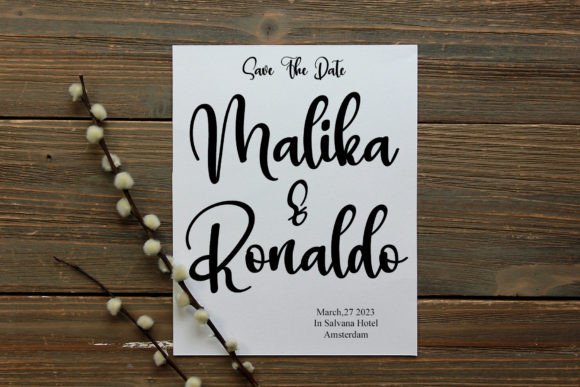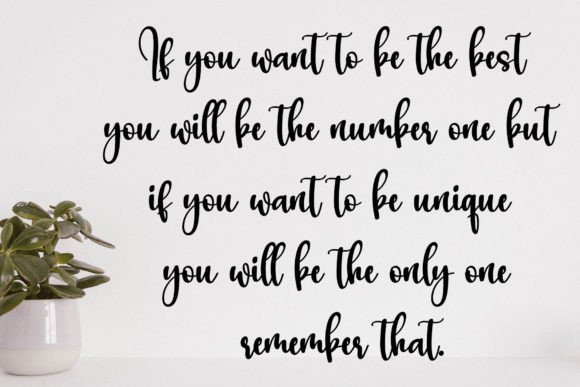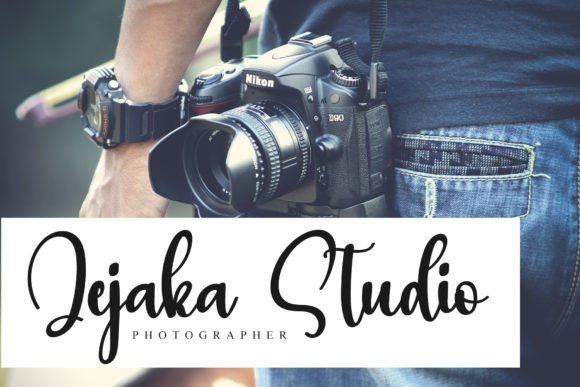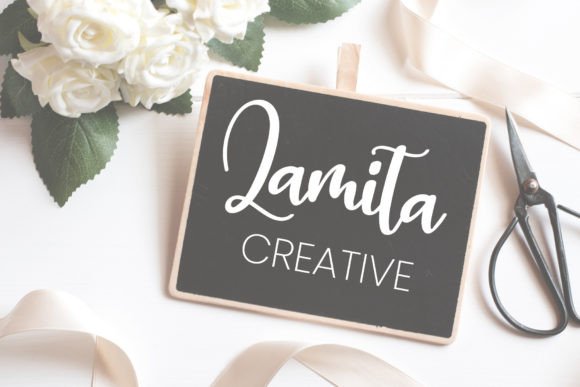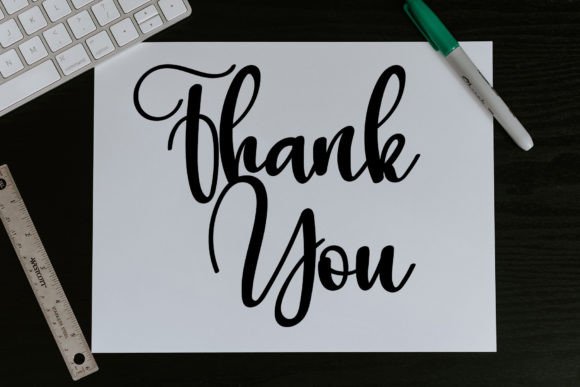
Introducing Buddy Font: The Playfully Handmade Display Font to Elevate Your Designs
Are you tired of using the same old fonts in your designs? Look no further than Buddy Font, a playfully handmade display font that’s sure to add a touch of whimsy to any project. With its incredibly playful handwritten style, Buddy Font is the perfect choice for designers and crafters looking to bring a little excitement to their work.
The Story Behind Buddy Font
Buddy Font is more than just a font – it’s a personality. Designed to be masterfully crafted, this font has the potential to become a true favorite in your design arsenal. Its playfully handmade feel is reminiscent of a childhood scribble, but with a sophistication that’s sure to impress. Whether you’re working on a branding project, a craft tutorial, or just a fun DIY project, Buddy Font is the perfect choice to add a little personality to your design.
What Makes Buddy Font So Special?
So what sets Buddy Font apart from other display fonts on the market? For starters, its unique playfully handmade feel is sure to grab attention. The font’s handwritten style is incredibly playful, with a charm that’s hard to resist. But it’s not just about looks – Buddy Font is also incredibly versatile. Use it to add a touch of whimsy to a logo, to create eye-catching headings, or to add a personal touch to a craft project.
How to Use Buddy Font in Your Designs
The possibilities are endless when it comes to using Buddy Font in your designs. Here are a few ideas to get you started:
- Branding:** Use Buddy Font to add a playful touch to your brand’s logo or marketing materials. Its unique style is sure to help your brand stand out from the crowd.
- Crafting:** Add a personal touch to your craft projects with Buddy Font. Use it to create custom titles, headings, or even just a fun quote or phrase.
- DIY Projects:** Use Buddy Font to add a touch of personality to your DIY projects. Whether you’re creating a custom sign, a handmade card, or just a fun decoration, Buddy Font is the perfect choice.
- Digital Design:** Buddy Font is also perfect for digital design projects, such as social media graphics, blog posts, or even just a fun email newsletter.
Why Designers and Crafters Love Buddy Font
So why do designers and crafters love Buddy Font? For starters, its playfully handmade feel is incredibly on-trend. In a world where digital design is becoming increasingly prevalent, Buddy Font offers a refreshing respite from the usual digital fare. Its unique style is also incredibly versatile, making it perfect for a wide range of design projects. Plus, its high-quality design ensures that it will look great in any context.
Tips for Getting the Most Out of Buddy Font
Here are a few tips for getting the most out of Buddy Font:
- Experiment with different sizes:** Buddy Font looks great in a variety of sizes, from small headings to large display text.
- Play with colors:** Buddy Font is perfect for use with bright, bold colors. Experiment with different color combinations to find the one that works best for your design.
- Mix and match:** Don’t be afraid to mix and match Buddy Font with other fonts. Its unique style pairs well with a wide range of font styles.